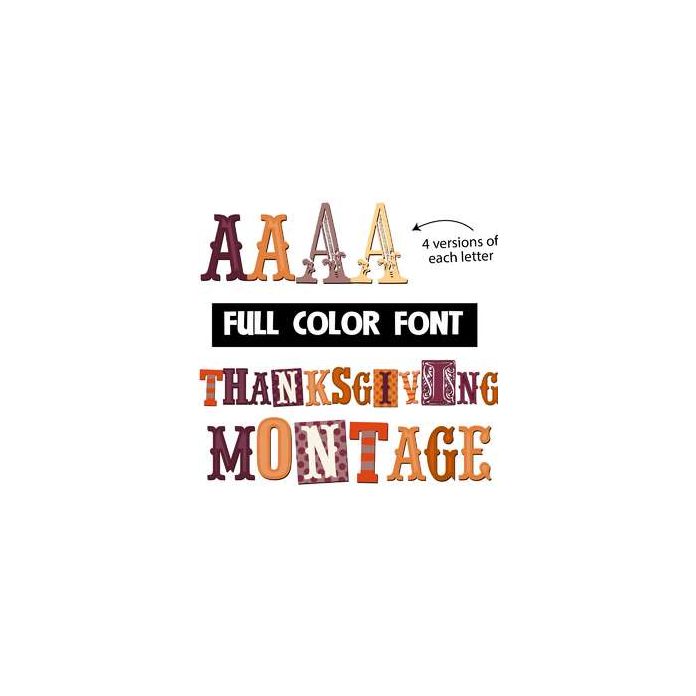
This full-color font features a montage of Thanksgiving colored lettering. There is an upper and lowercase alt case you can access through your system's character map. This font works best for titles, displays, posters and more. Please note color fonts will show as black in non compatible programs. This font type is compatible with Silhouette Studio.